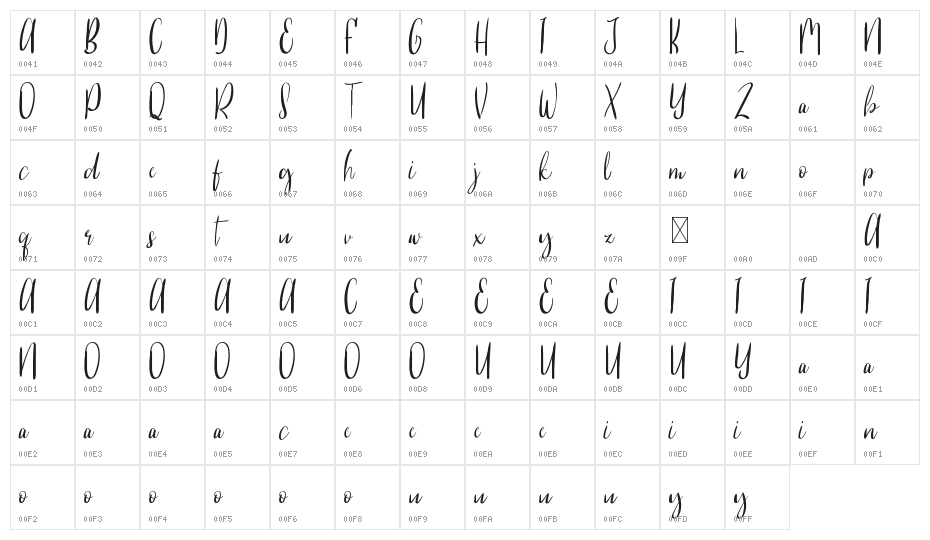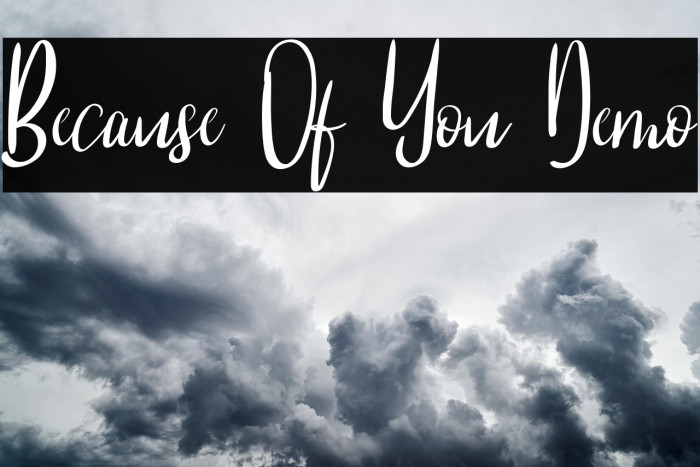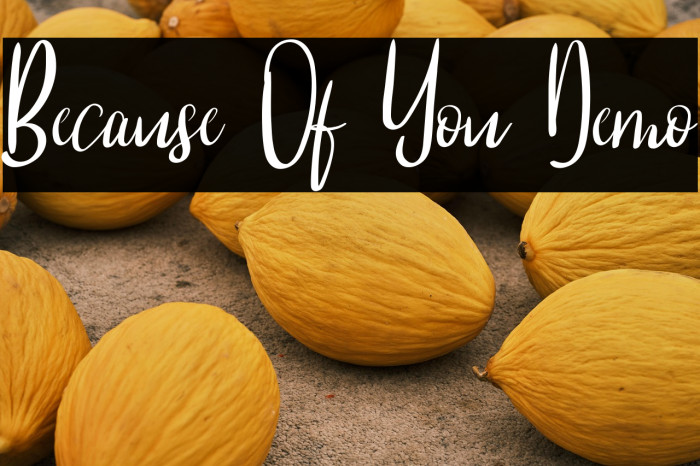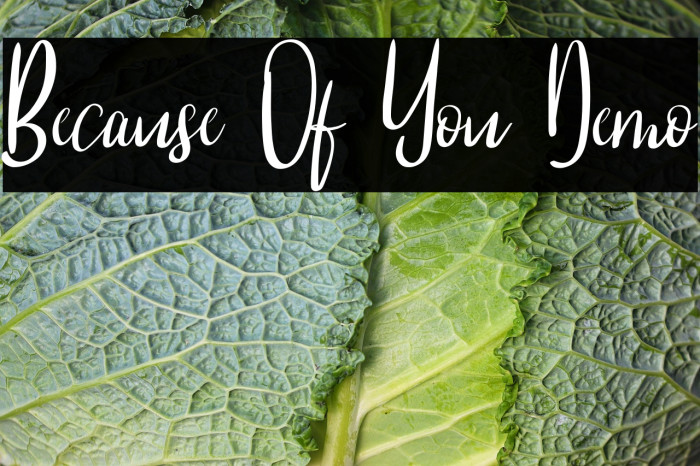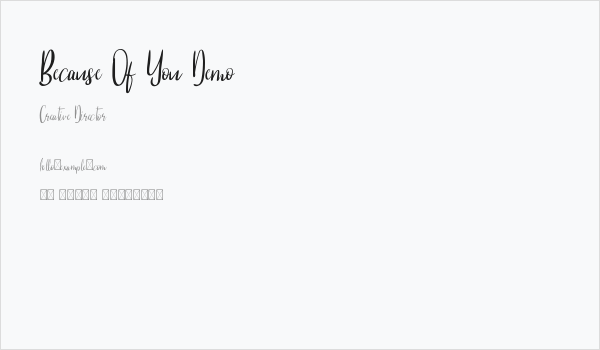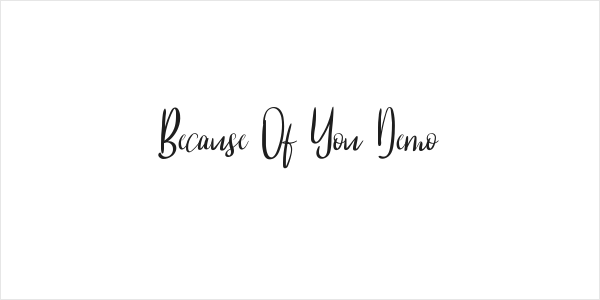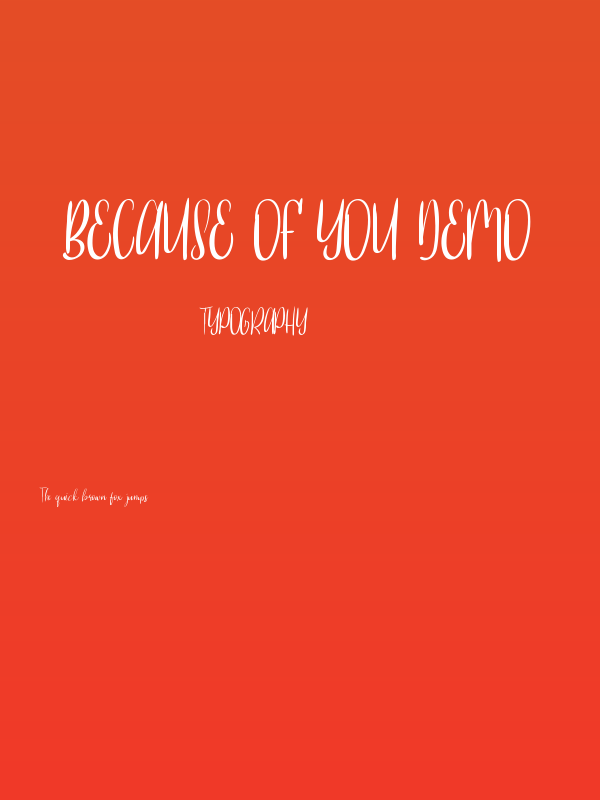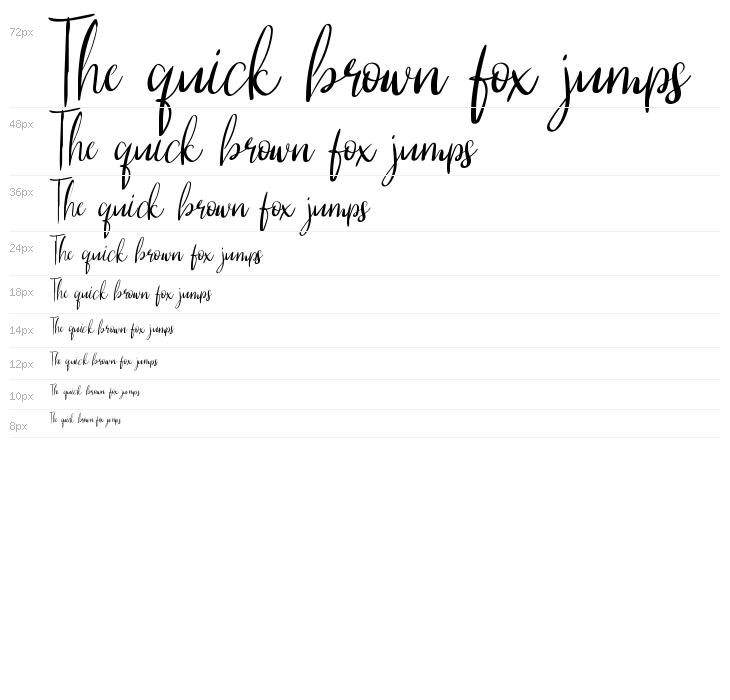
Because Of You Demo Font
Because Of You Demo Description
This font features a playful and expressive handwritten style, characterized by its tall, narrow letterforms and flowing, cursive-like strokes. The uppercase letters are particularly elongated, giving a sense of elegance and movement, while the lowercase letters maintain a consistent, fluid appearance. The font's unique charm lies in its combination of thick and thin lines, creating a dynamic contrast that adds visual interest. It's well-suited for creative projects that require a personal touch, such as invitations, greeting cards, and artistic branding. The font's whimsical nature makes it ideal for conveying warmth and creativity.
Use CaseLogos, Headlines, Artistic projects
Proposed ProjectsIdeal for invitations, greeting cards, artistic branding, and creative projects requiring a personal touch.